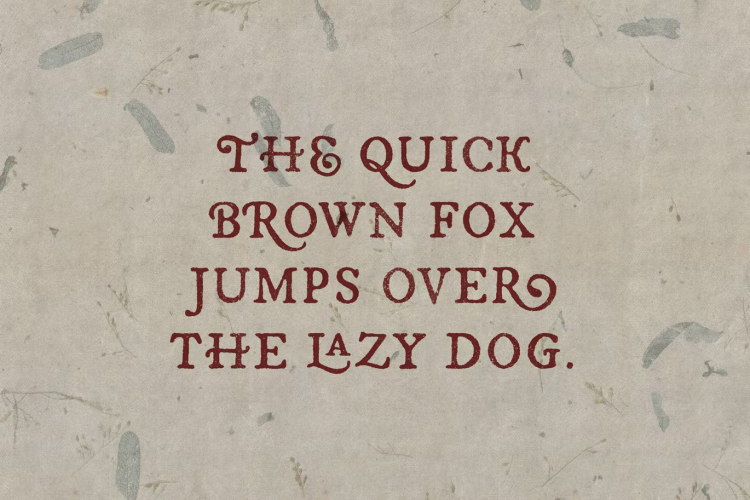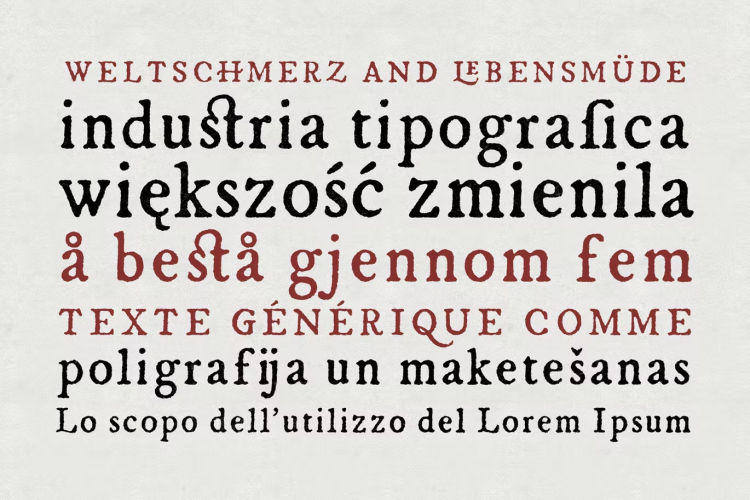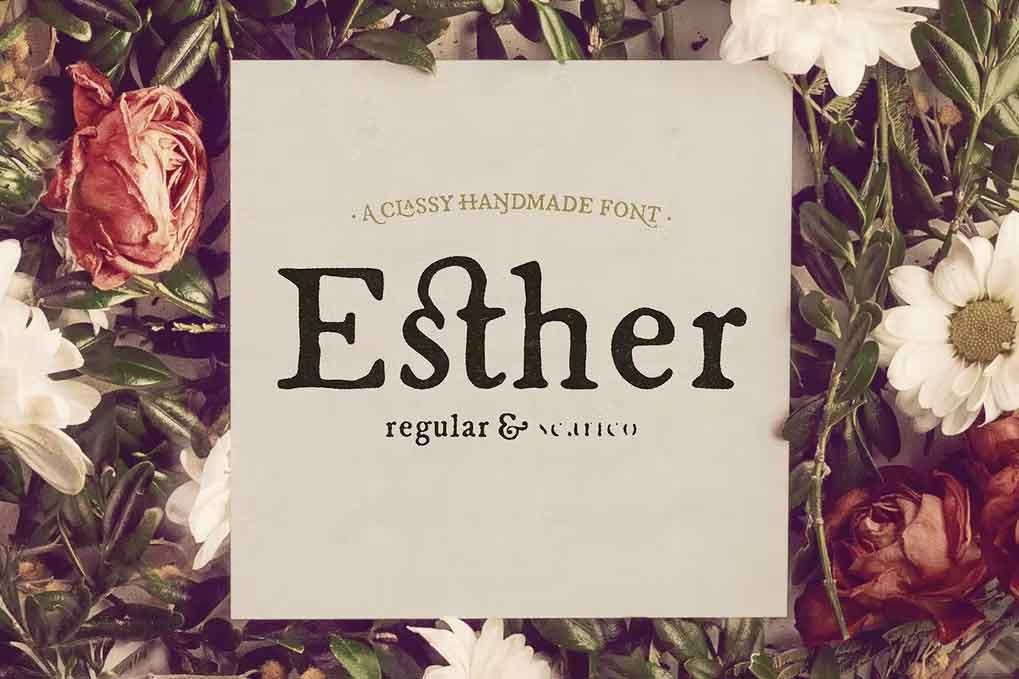
Esther Handmade Font
ESTHER HANDMADE (REGULAR & EXHAUST)
Esther is a classy handmade typeface that has been designed by Valerio Dell’Edera, who also has developed a Uppercase-Liga product line (Zenzero Grotesk And Zenzero Grotesk Sans). This font is the ultimate version of this serie, with serifs. It is not constructed out of modules: each character is drawn by hand and optimized for the best legibility. Esther is ideal for cookbooks, menus, liquor bottle labels, food packaging, wedding invitations, greeting cards, tea boxes, food blogs, small shops, cupcake bakeries and so on.
Esther Regular (Esther-Regular.otf) is a set of upper & lowercase serif characters which includes a large range of punctuation glyphs, numerals, and multilingual support. A full set of stylistic alternates for lowercase characters are also available.
Esther Exhaust (Esther-Exhaust.otf) is the dry ink version of the regular one.
Where Esther Handmade Font works best
Reports, white papers and book interiors hold the eye longer when the text face has real serifs; Esther Handmade Font keeps that rhythm without looking old-fashioned.
Food, spirits and cosmetics brands lean on serif wordmarks to suggest age and care. Esther Handmade Font gives that signal at wordmark size.
Set Esther Handmade Font for the body of an award or a diploma and keep the recipient name in a script; the pairing is what makes a document feel official.
What kind of work does Esther Handmade Font suit?
It sits in the Serif Fonts group and reads as food, handwritten, packaging, readable. That makes it a candidate wherever those qualities help: headings, packaging, social graphics and brand work. Set it at the size you plan to use before deciding.